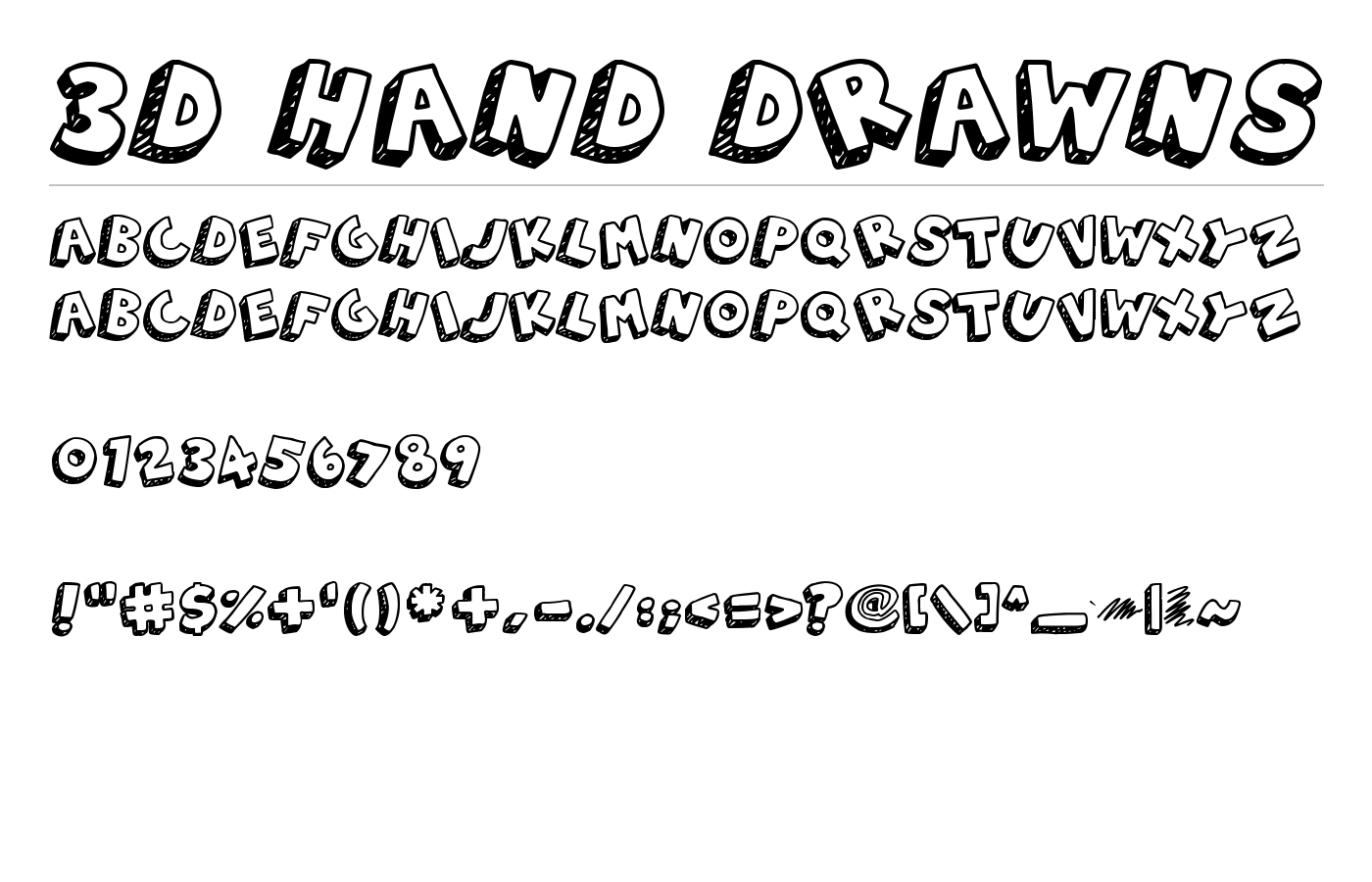
3D Hand Drawns is a playful and bold sans-serif font with a hand-drawn, three-dimensional style that adds a whimsical, casual vibe to any design. Its chunky, irregular shapes and sketch-like shading create a lively, informal feel perfect for fun branding, children’s projects, or creative headlines that need a unique, eye-catching touch. This font works best in display settings where personality and approachability are key.
3D Hand Drawns Font
About 3D Hand Drawns Font